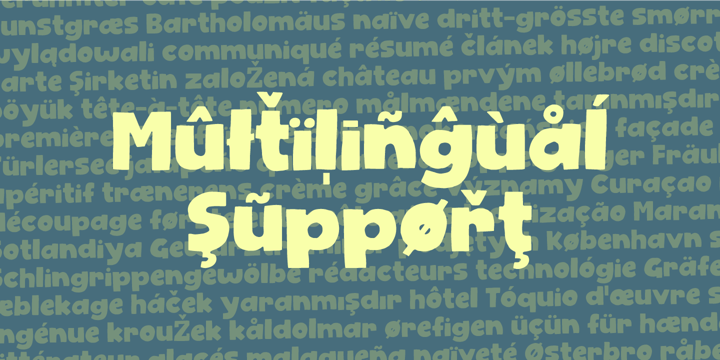
Gimcrack
by Bogstav
The Gimcrack Font Family was designed by Jakob Fischer and published by Bogstav. Gimcrack contains 2 styles and family package options. More about this family
Gimcrack is "showy but cheap or badly made" - that's what a search on the internet says. Well, that description fits this font quite well - although it was deliberately made that way!
Designers: Jakob Fischer
Foundry: Bogstav